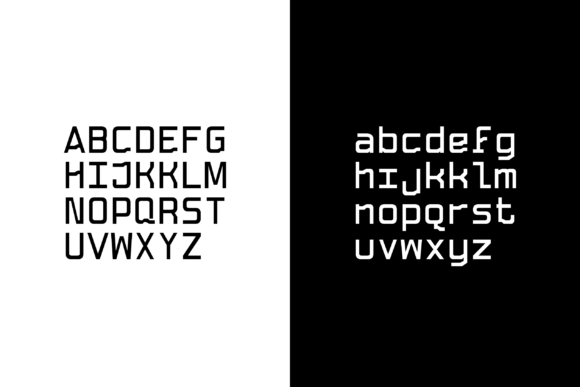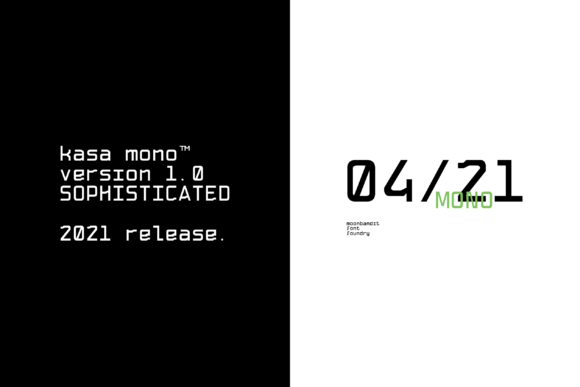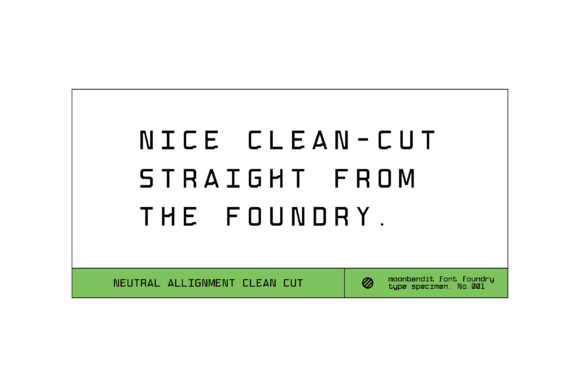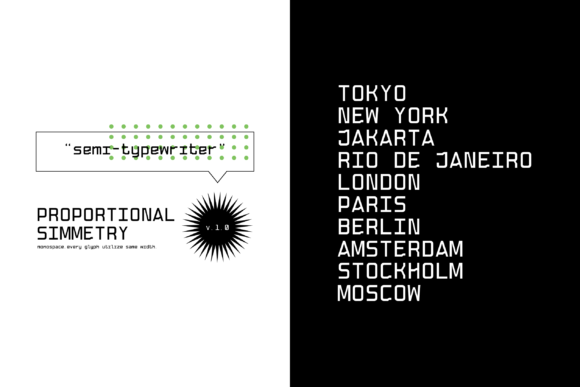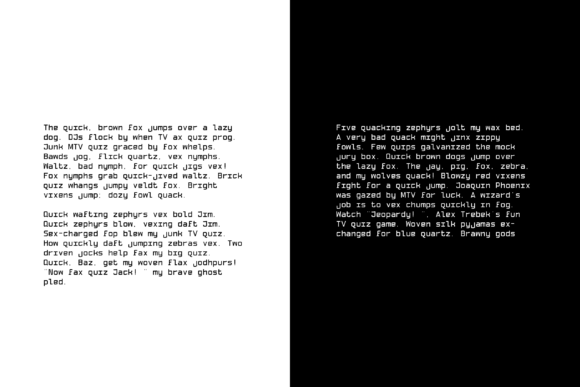
Introduction to Kasa Font
Kasa is a modern and futuristic display font.
It will look stunning on any poster flyer or print Use this font for your designs and explore its endless possibilities.
Key Features of Kasa Font